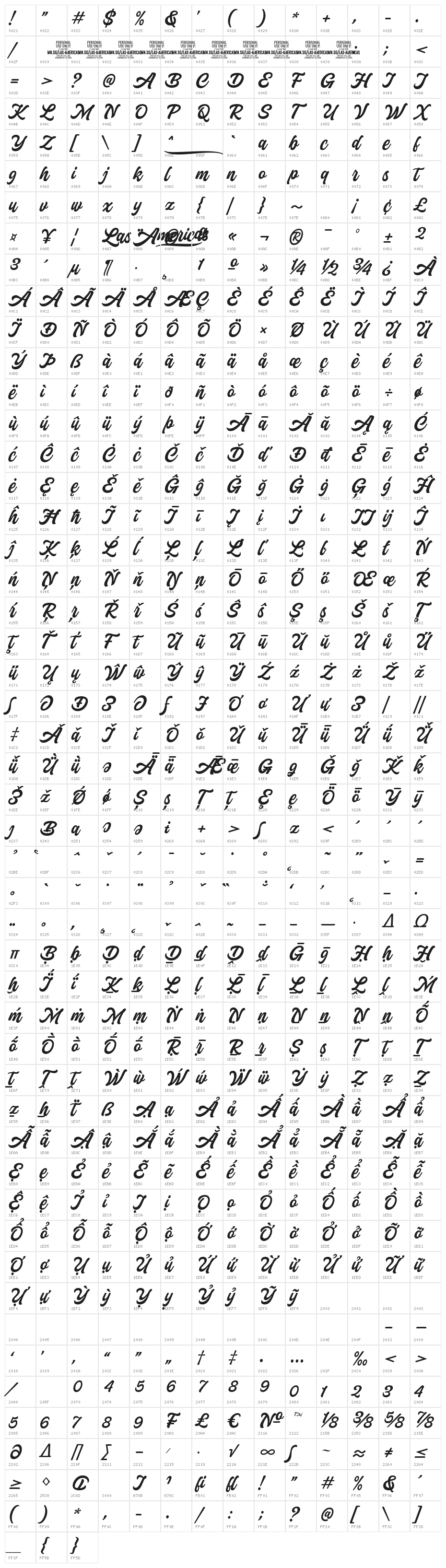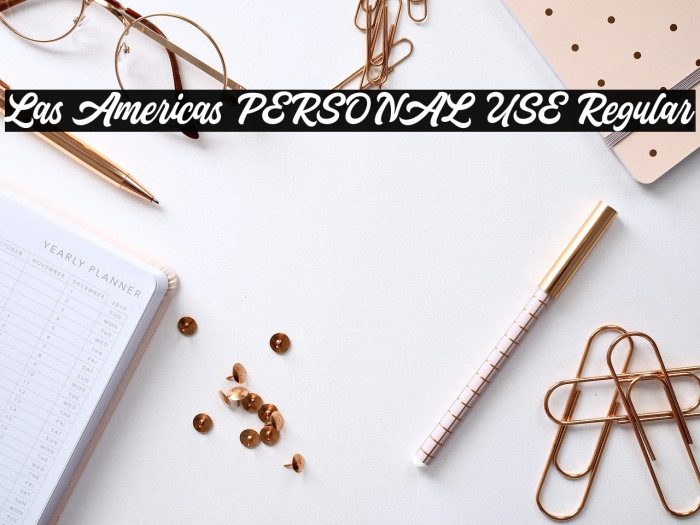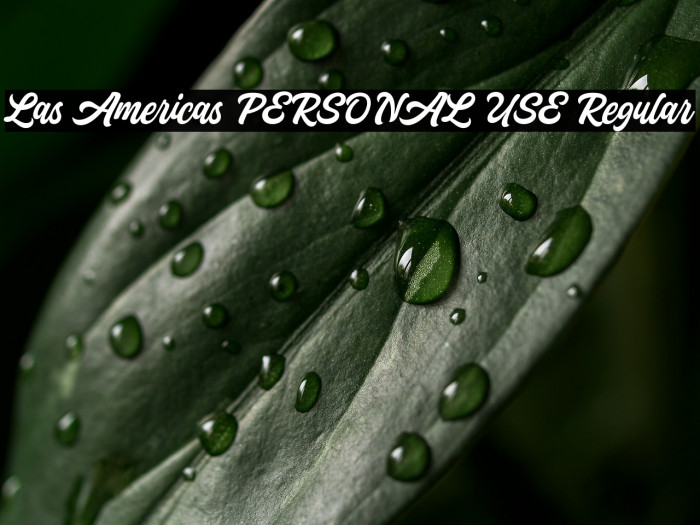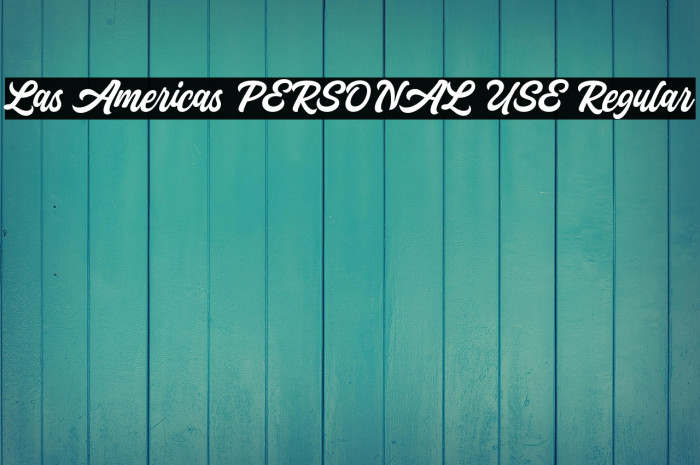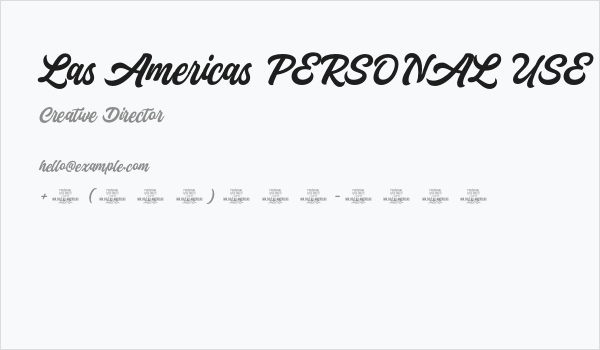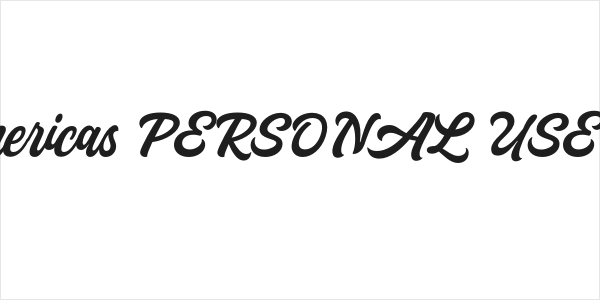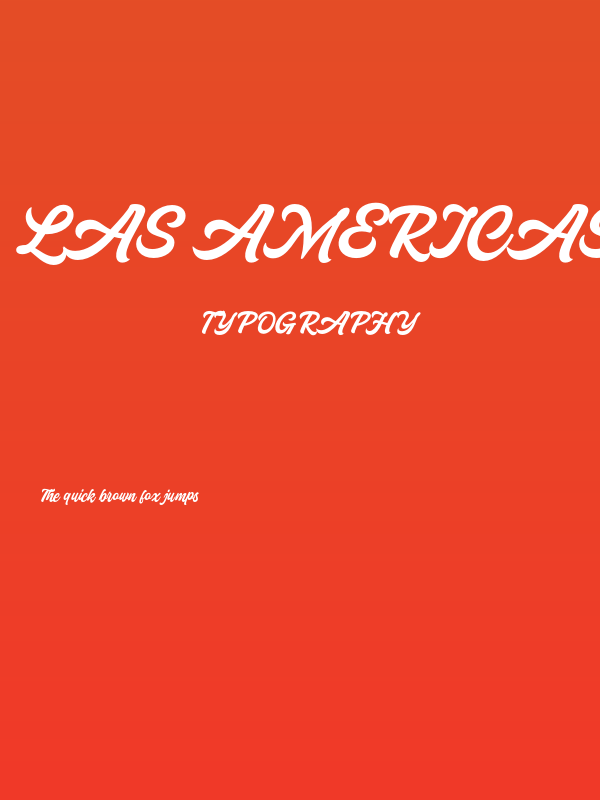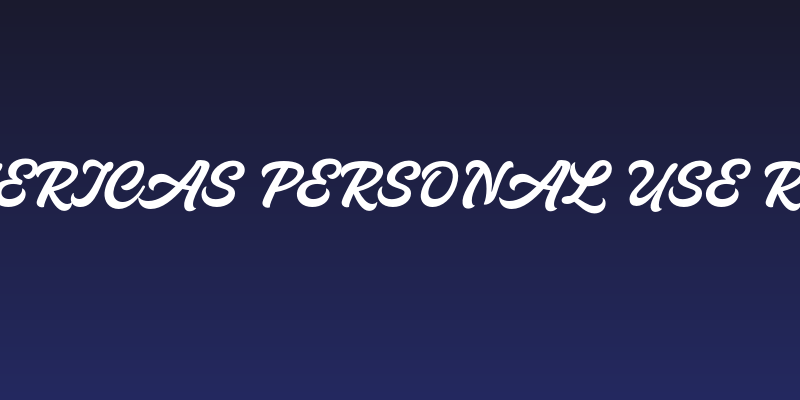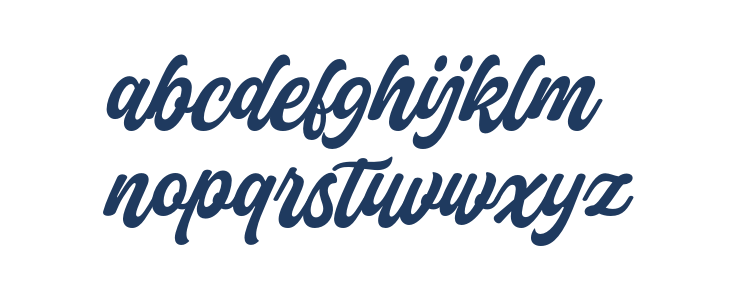
Las Americas PERSONAL USE Regular Font
Las Americas PERSONAL USE Regular Description
This font features a bold and flowing script style, characterized by its smooth, connected letters that mimic the fluidity of handwriting. The uppercase letters are elegantly curved, with a consistent stroke width that adds to its bold appearance. The lowercase letters maintain a similar style, ensuring readability while preserving the decorative nature of the font. The numbers and special characters are designed to match the overall aesthetic, providing a cohesive look across all characters. This font's design is both stylish and legible, making it suitable for a variety of creative applications.
| Proposed Projects | Ideal for branding, invitations, greeting cards, and decorative headlines. |